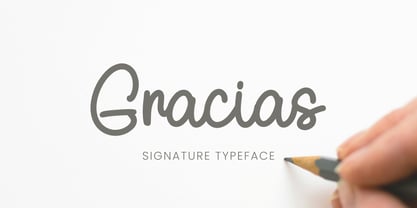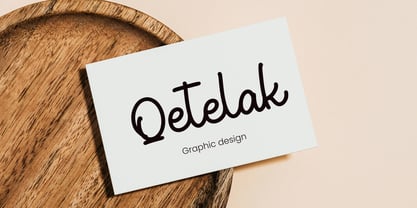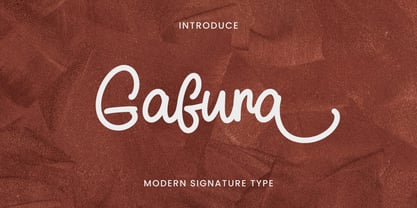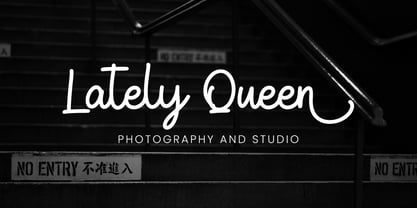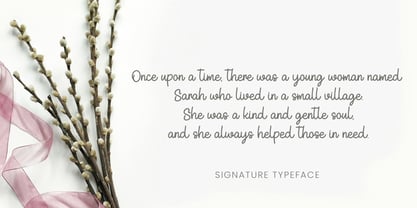
Gafura
by Ayska
The Gafura Font Family was designed by Dhoni Trihatmoko and published by Ayska. Gafura contains 1 styles. More about this family
Gafura is a versatile handwritten font. With block and cursive style features, it is perfect for titles and quotes, legible and attractive for labels, luxurious for brands, and great for signatures. This font look great on posters, invitations, greeting cards, quotes, crafts, fashion, food banners, branding, stationery, and more.
Designers: Dhoni Trihatmoko
Foundry: Ayska